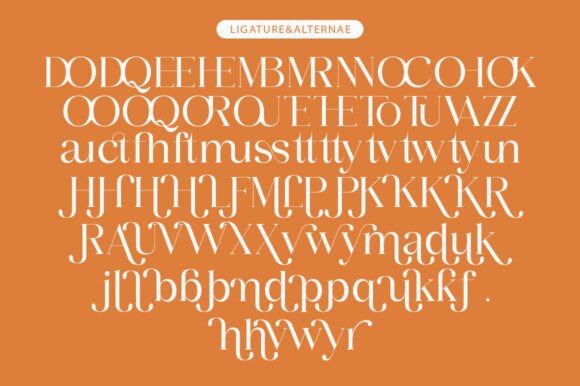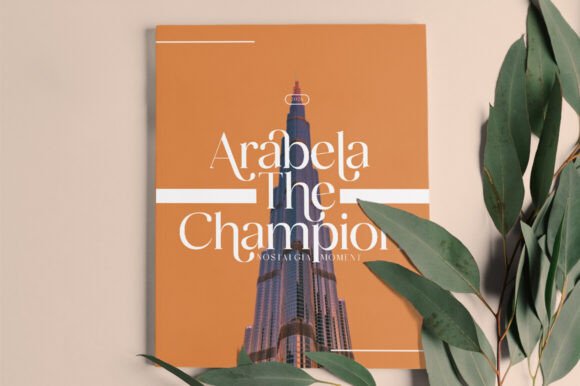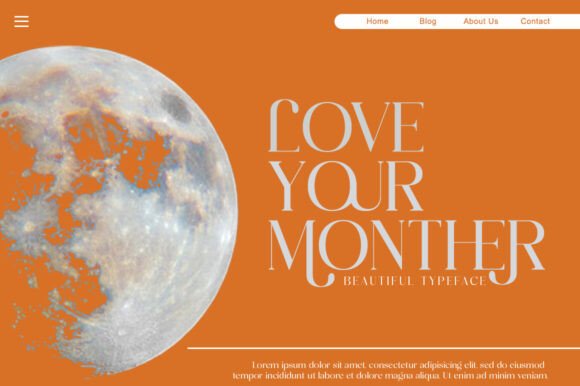
Introduction to Aihuner Font
Have you ever found yourself stuck in a creative rut, unable to bring your vision to life due to the limitations of your design tools? You’re staring at a blank page, trying to think of the perfect font to elevate your project, but nothing seems quite right. This is where the Aihuner Font comes in – a game-changing design resource that can breathe new life into your creative project.
With its unique blend of traditional serif elements and modern flair, the Aihuner Font is a versatile and high-quality typeface that’s perfect for designers looking to add a touch of sophistication to their work. Whether you’re working on a high-end branding project or a personal design experiment, this font is sure to impress. And the best part? It’s available for free download, making it an accessible design resource for creatives of all levels.
From its smooth, pointed serifs to its dynamic, contrasting strokes, the Aihuner Font is a true showstopper. And with its transparent background and wide range of functional and experimental glyphs, you’ll have endless possibilities for customization and creativity. So why settle for a boring, generic font when you can elevate your design with the Aihuner Font?
Key Features of Aihuner Font
- Supports a wide range of languages, making it a versatile design resource
- Designed with a unique aesthetic, perfect for adding a touch of elegance to any design
Honest Review: Aihuner Font
I recently had the opportunity to work with the Aihuner Font, and I must say it’s been a delightful experience. The font’s unique and modern design makes it an excellent addition to any creative project.
- ✨ The font’s transparent background makes it easy to use on any background, giving you complete control over the design.
- ✨ The high quality of the font is evident in its crisp and clear letters, making it perfect for both digital and print designs.
While the Aihuner Font excels in many areas, there are a few limitations to consider.
- ⚠️ The font may not be suitable for complex or large-scale projects due to its limited character set.
- ⚠️ Some users may find the font’s modern design too trendy or overused, which could limit its versatility.
Overall, I’m impressed with the Aihuner Font and would definitely recommend it to designers working on creative projects. Its high quality, unique design, and free download make it a valuable design resource.
For the most out of the Aihuner Font, use it on a transparent background to create a seamless design. Common use cases include creating logos, branding materials, and promotional graphics.